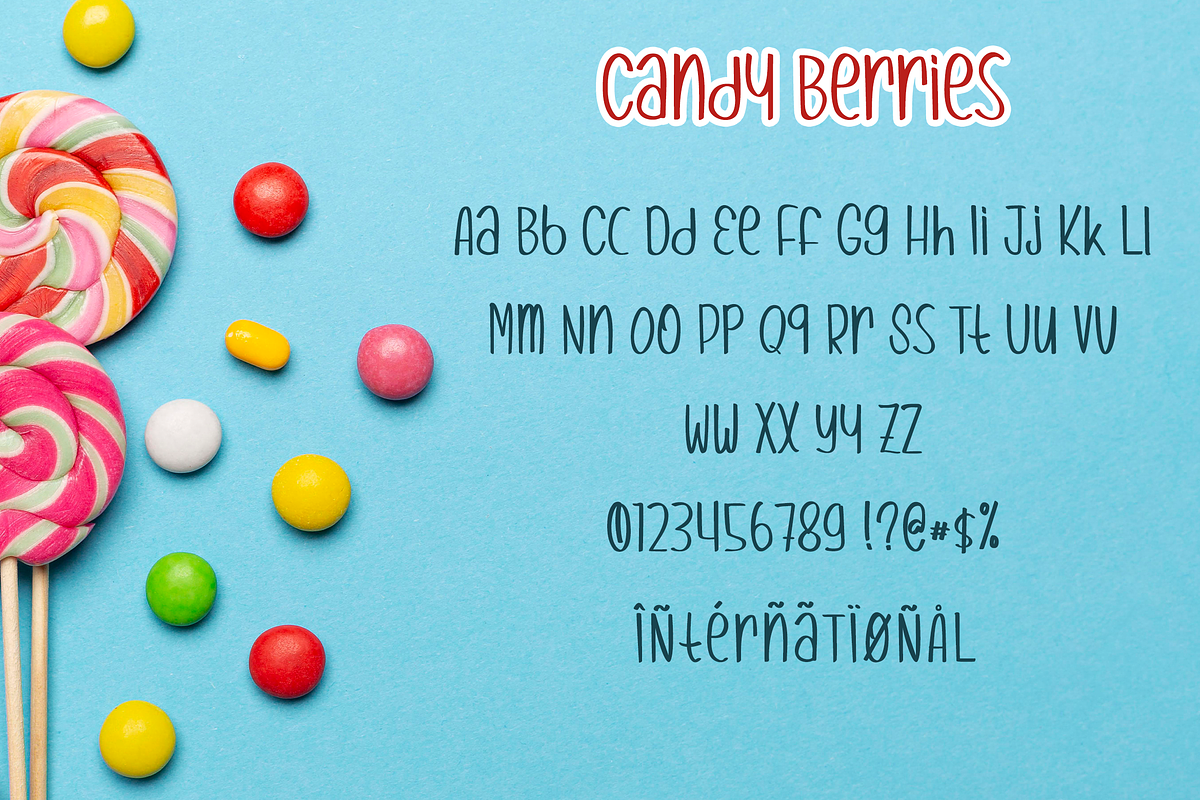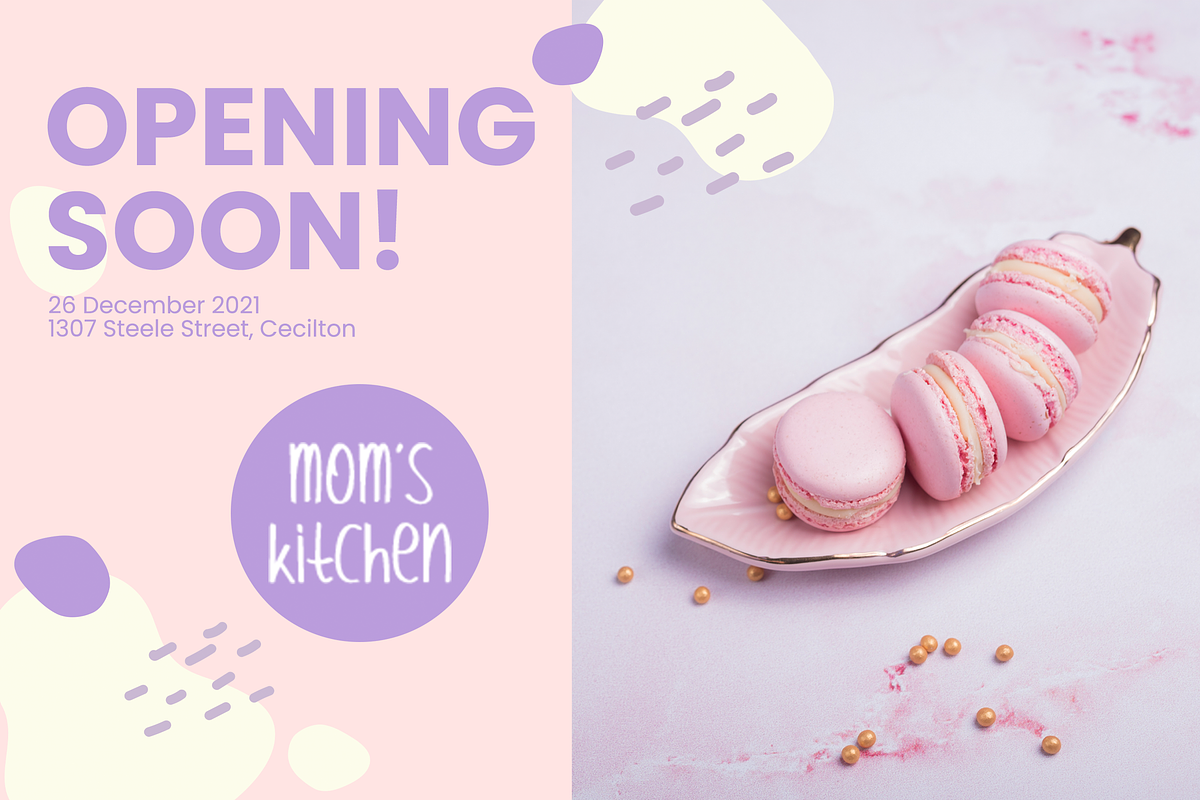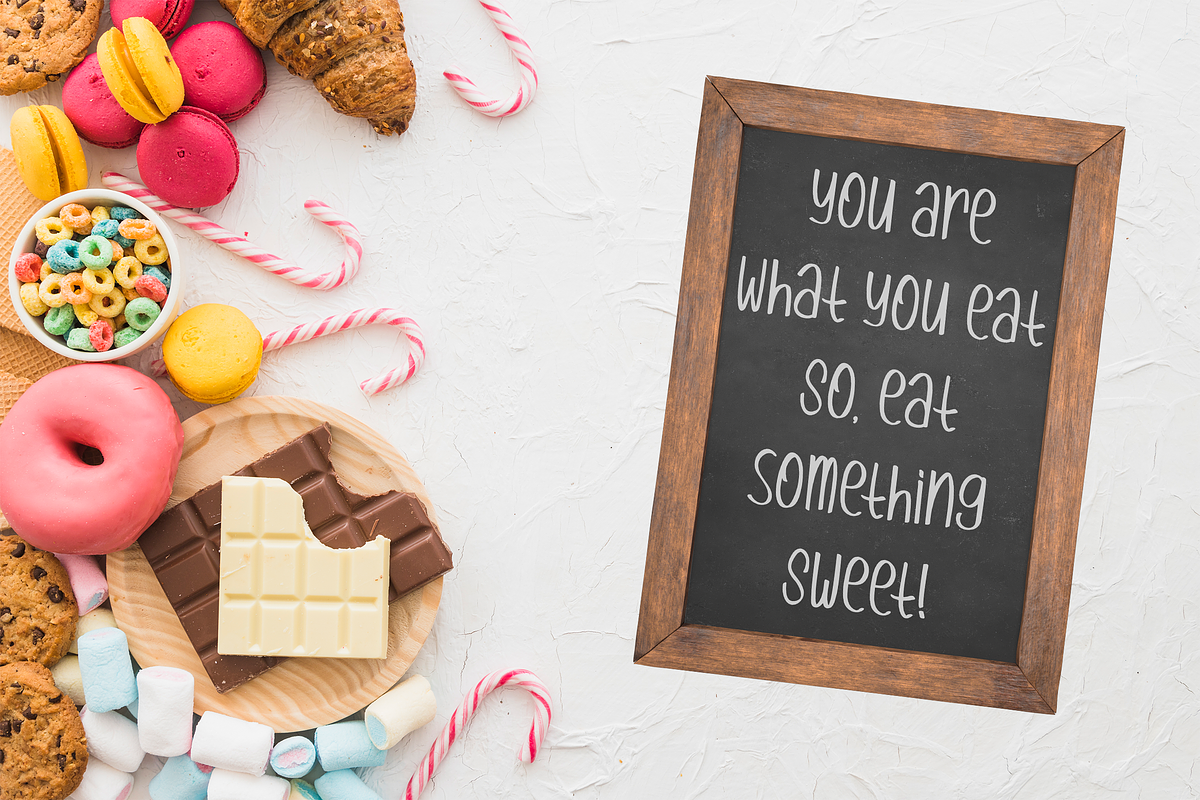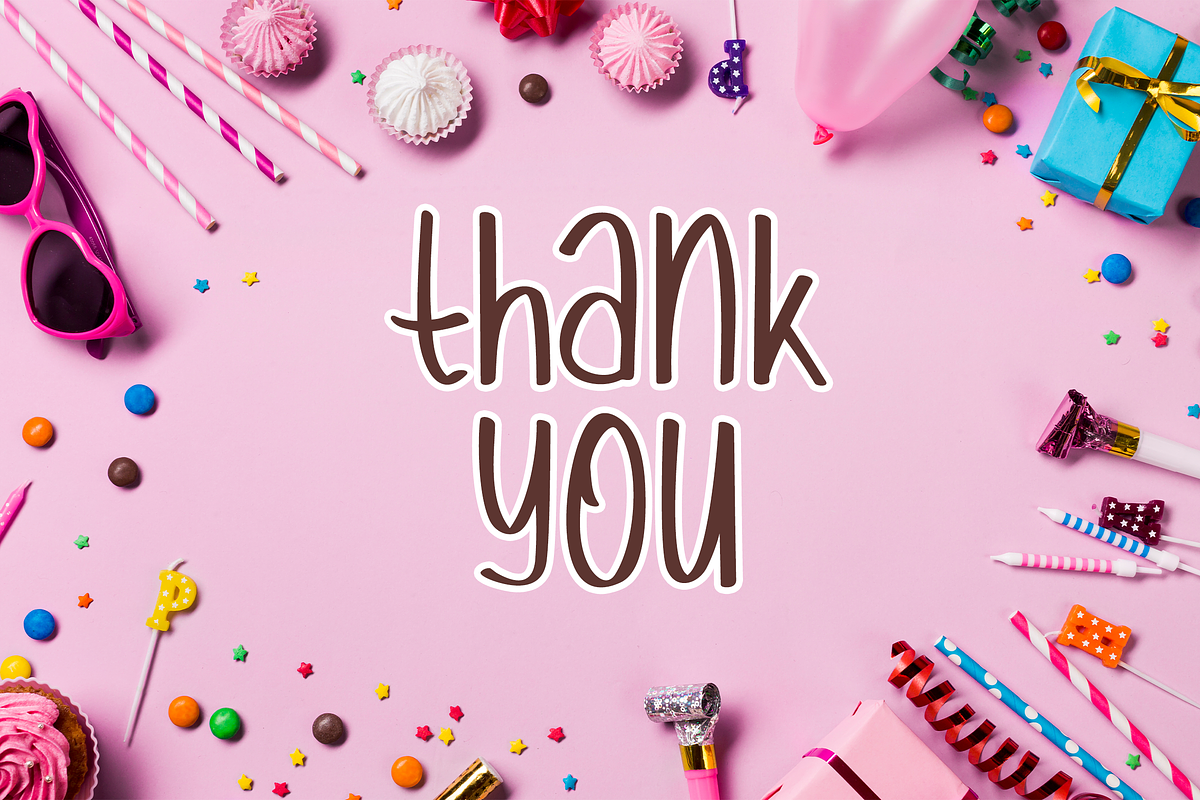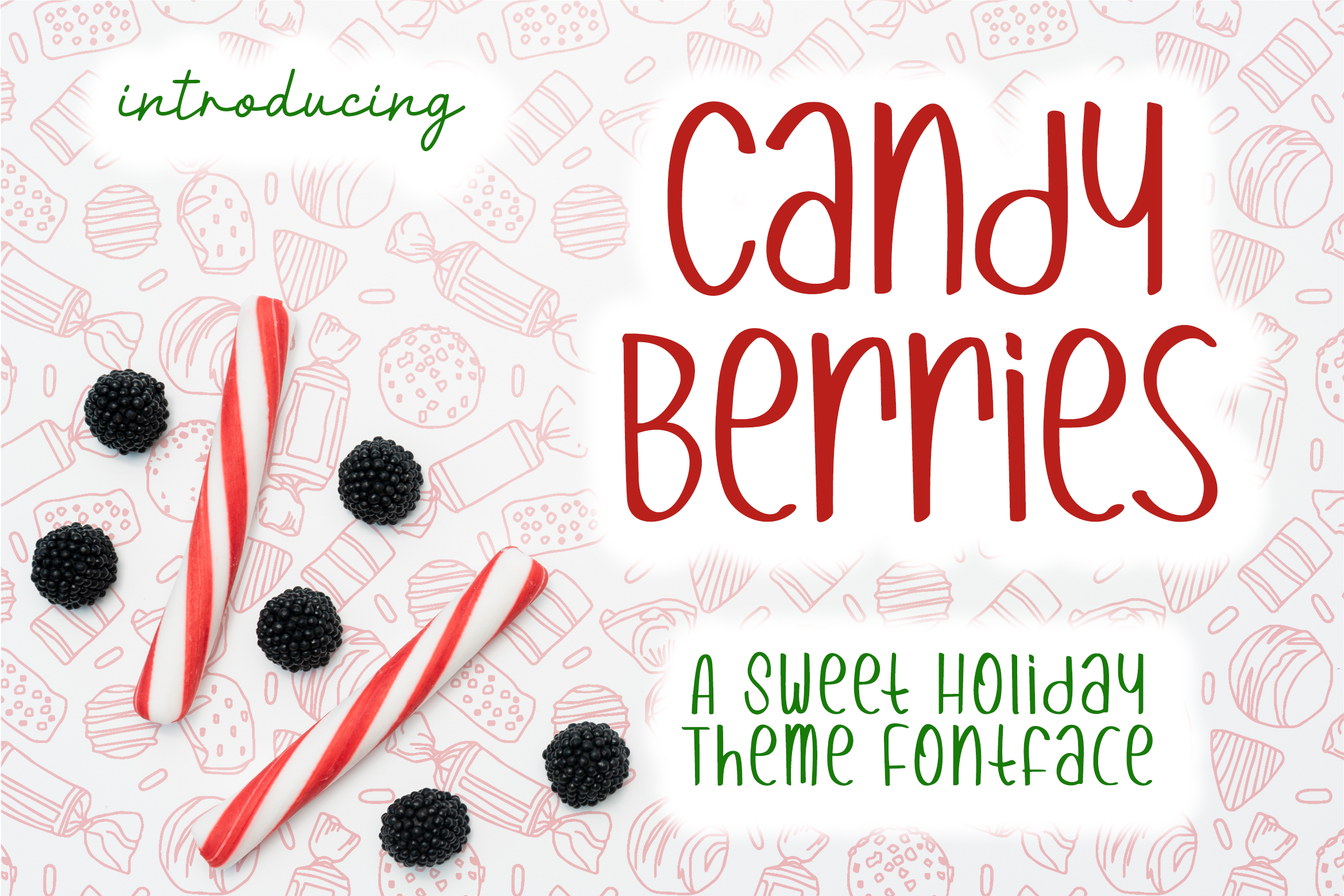
Candy Berries | Holiday Theme Font
Candy Berries is a cute handwritten font made for holiday theme. This awesome font is best suited for crafting design through out the year. It will add an incredibly joyful touch to your designs. Add this beautiful display font to each of your creative ideas and notice how it makes them stand out! Whether it’s for web, print, moving images or anything else – Candy Berries will give a spectacular look to your design.
- Candy Berries Regular • A hand drawn cute font. It contains upper & lowercase characters, all punctuation and numerals.